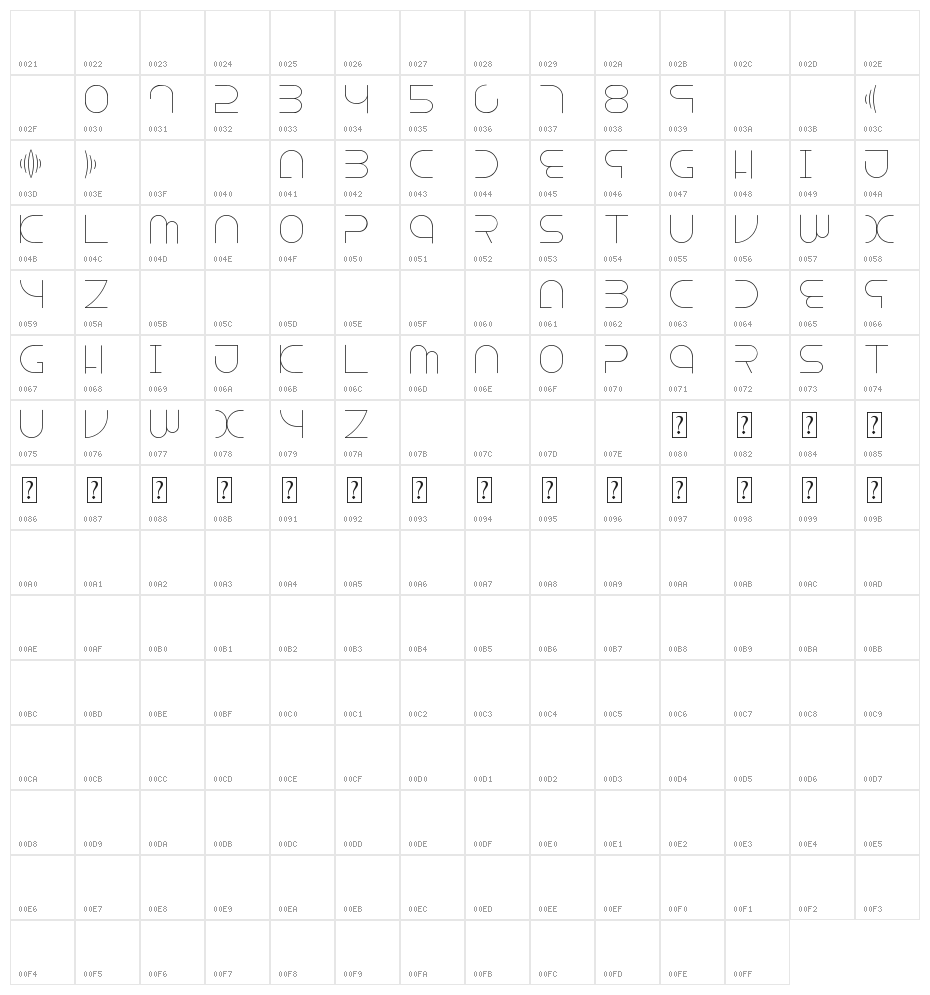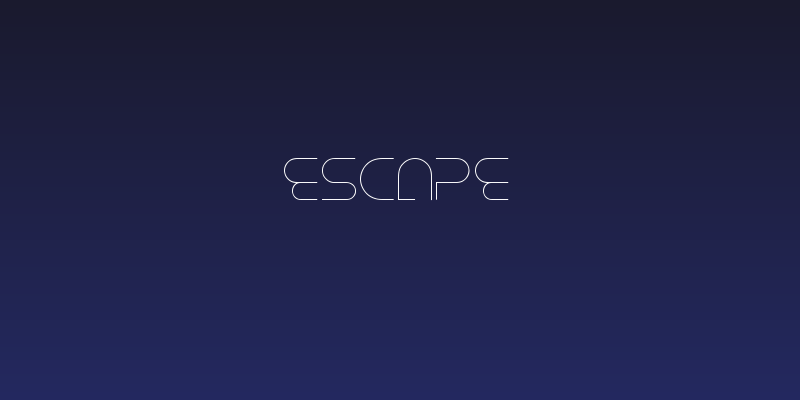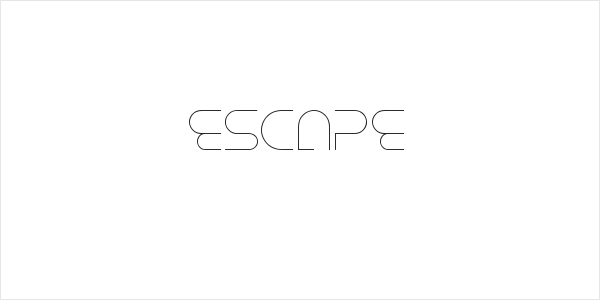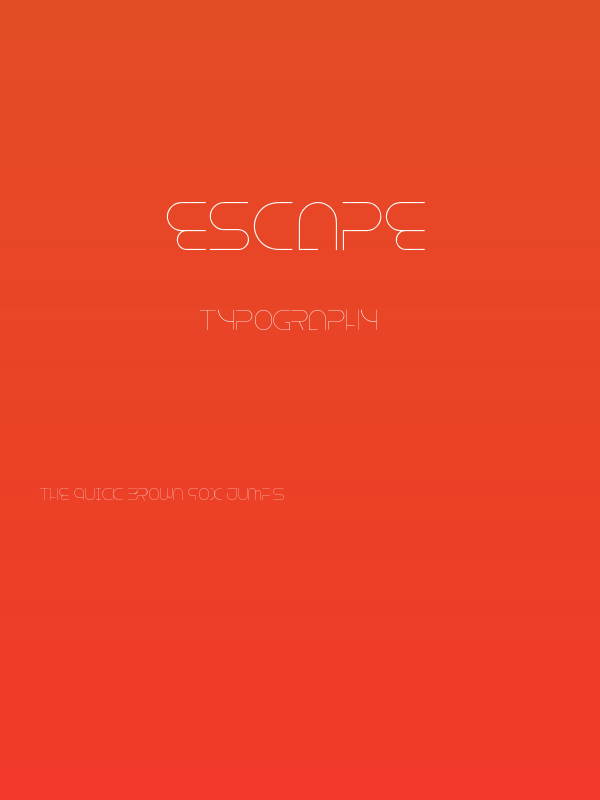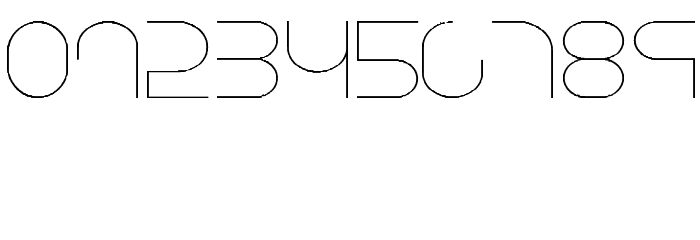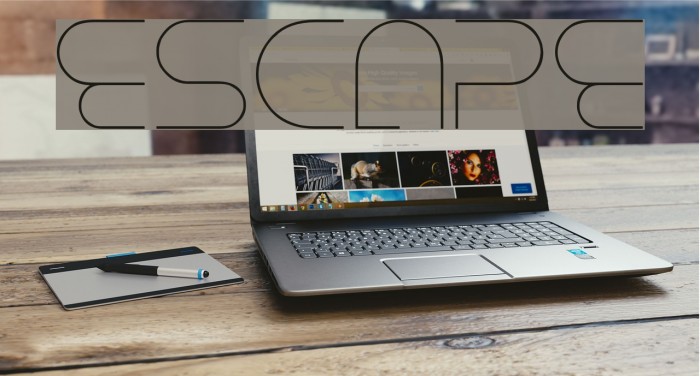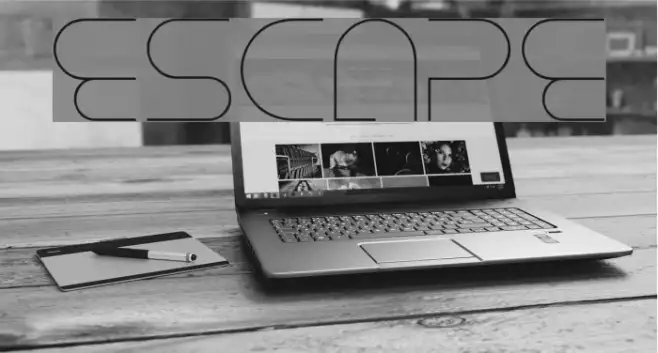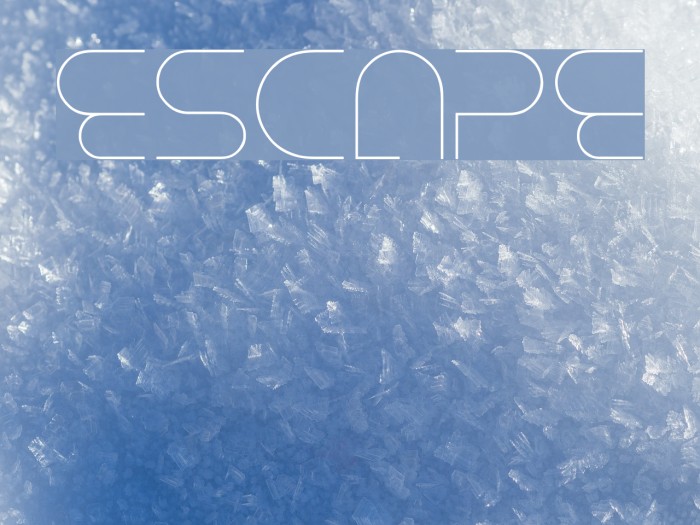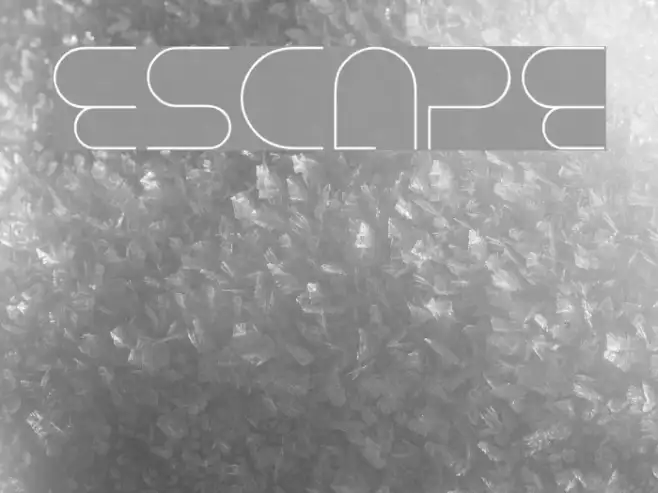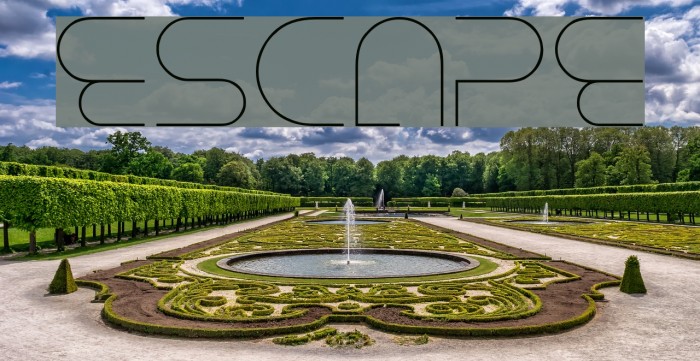
Escape Font
Escape Description
This font features a modern, geometric design with clean lines and a minimalist aesthetic. Each character is constructed with a consistent stroke width, creating a uniform appearance across the alphabet. The letters are formed with a combination of straight lines and smooth curves, giving the font a futuristic and sleek look. The uppercase and lowercase letters maintain a similar style, ensuring cohesion throughout the typeface. The numerals and special characters are designed to match the overall geometric theme, making this font ideal for projects that require a contemporary and stylish touch.
| Use Case | Logos, Headlines, Digital interfaces |
| Proposed Projects | Ideal for tech branding, modern logos, futuristic posters, and digital interfaces. |